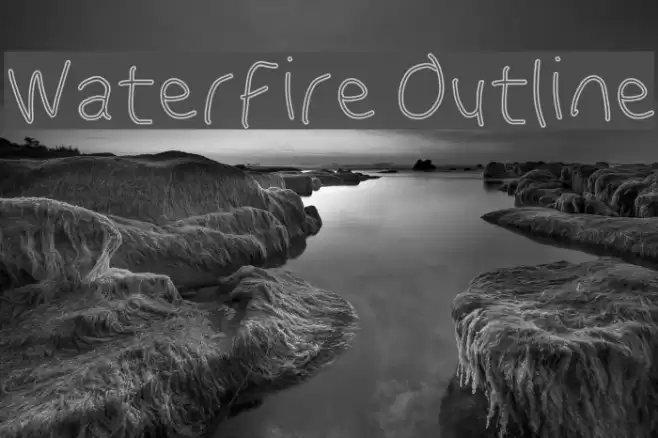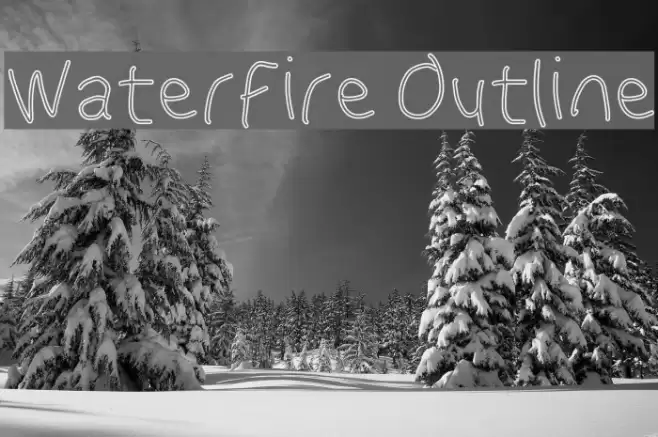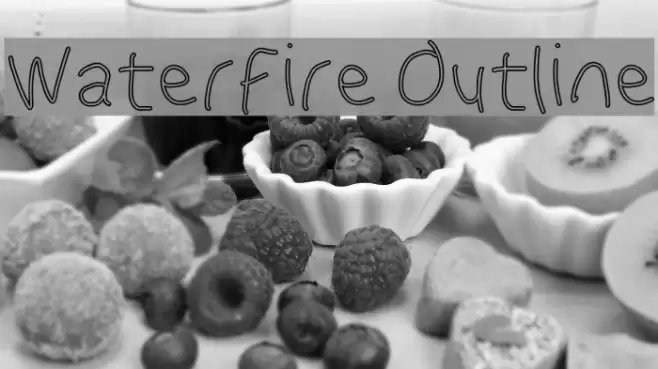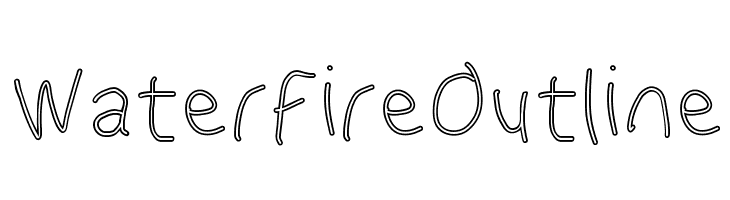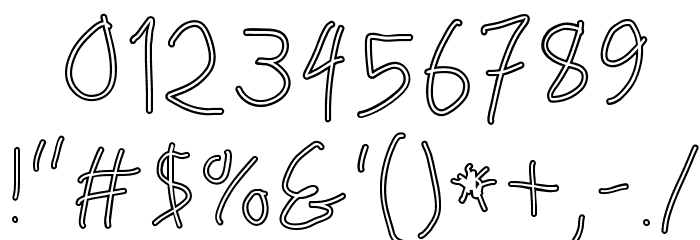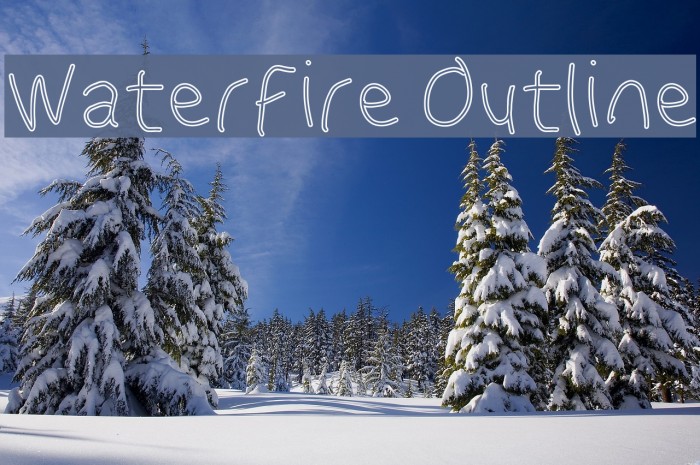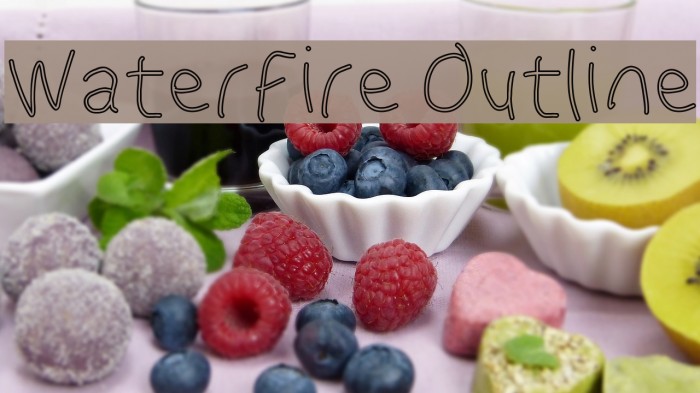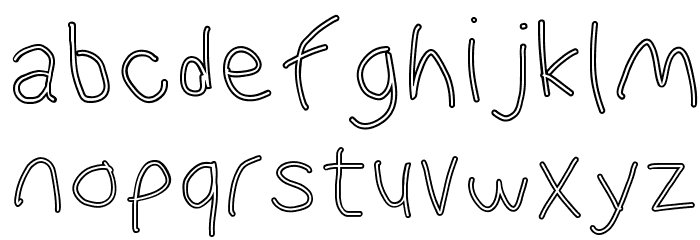
WaterFire Outline Font
WaterFire Outline Description
This playful and whimsical font features an outline style that gives it a hand-drawn, casual appearance. The characters are slightly irregular, adding to its charm and informal feel. Each letter is crafted with a consistent stroke width, creating a cohesive look across uppercase, lowercase, numerals, and special characters. The font's outline nature makes it stand out, ideal for projects that require a touch of creativity and fun. Its unique style is perfect for designs that aim to be approachable and engaging, such as children's books, playful branding, or artistic posters.
A playful, hand-drawn outline font with a whimsical and casual style from Uncategorized fonts.
- Proposed Projects: Ideal for children's books, playful branding, artistic posters, and creative invitations.
- Overall Style: Whimsical, Casual, Playful